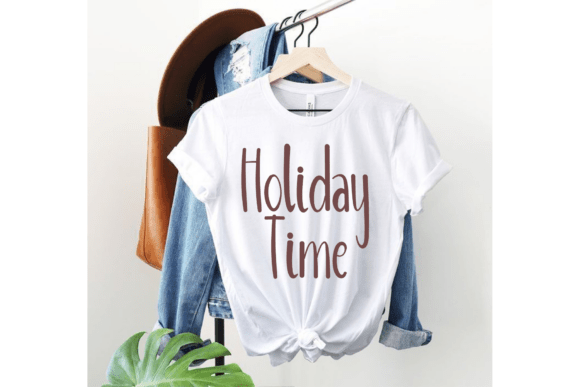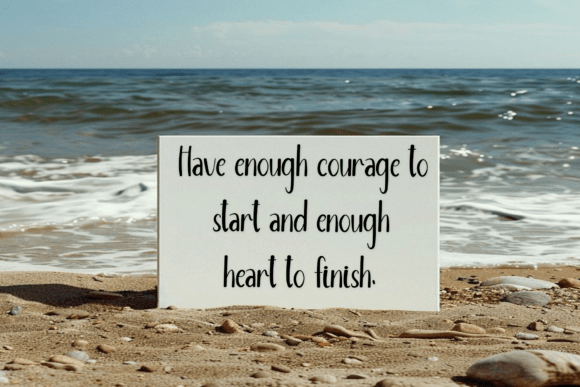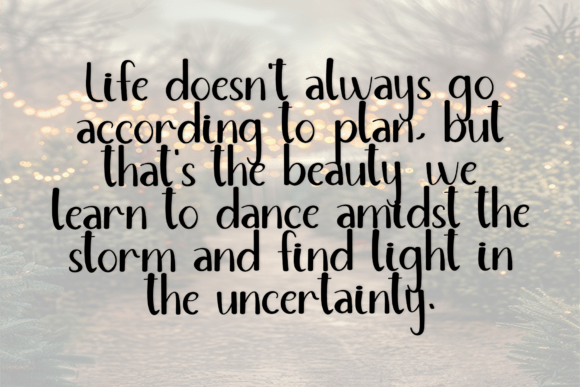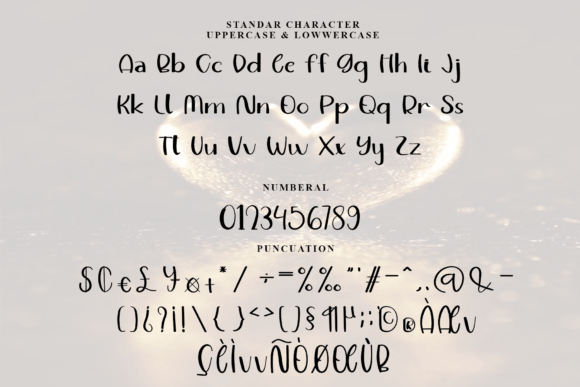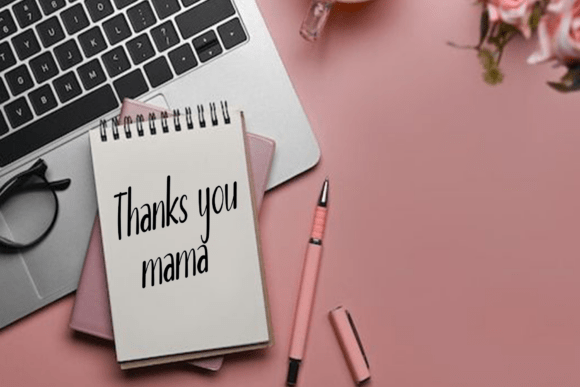
The Perfect Blend of Personality and Readability: Cake Birthday Font
Have you ever been browsing through your phone’s gallery, reminiscing about past birthdays and special occasions, and stumbled upon a beautifully designed invitation or social media post that just makes you smile? For designers, capturing that special moment and conveying the warmth of a personal touch is crucial. That’s where the Cake Birthday Font comes in – a casual handwritten font that radiates warmth and personality.
This versatile font features smooth strokes, natural curves, and easy-flowing letterforms, making it ideal for quotes, invitations, branding, and social media posts. With its effortless style and modern, approachable feel, the Cake Birthday Font delivers both readability and charm, making it a valuable addition to any designer’s toolkit.
Cake Birthday Font Key Features
- Unique Characteristics: The Cake Birthday Font features a unique, hand-drawn design with intricate details and textures, giving it a distinctive and playful feel.
- Font Style: The font is available in both uppercase and lowercase letters, with a range of punctuation marks and symbols to enhance its versatility.
Cake Birthday Font Review
First off, I love the whimsical vibe of Cake Birthday Font. It’s perfect for adding a touch of playfulness to your designs. ✨ The font’s cursive nature makes it ideal for creating eye-catching titles and headings, especially when used in conjunction with bold colors.
The font is well-suited for a variety of projects, including birthday invitations, party decorations, and even social media graphics. ✨ It’s also great for creating a cohesive look across multiple design elements.
- ⚠️ The font may be too playful for more formal or professional designs, which could detract from the overall tone.
- ⚠️ The font’s cursive nature can make it difficult to read at smaller font sizes, which may limit its use in certain contexts.
In terms of overall impression, I think Cake Birthday Font is a great addition to any designer’s toolkit. While it may not be suitable for every project, it’s perfect for adding a touch of fun and whimsy to your designs. Just be sure to use it judiciously and pair it with other design elements that complement its playful nature.
The Cake Birthday Font is commonly used for:
- Birthday invitations and party decorations.
- Custom birthday cards and gift tags.
- Social media posts and online birthday messages.
- Graphic designs and visual projects.